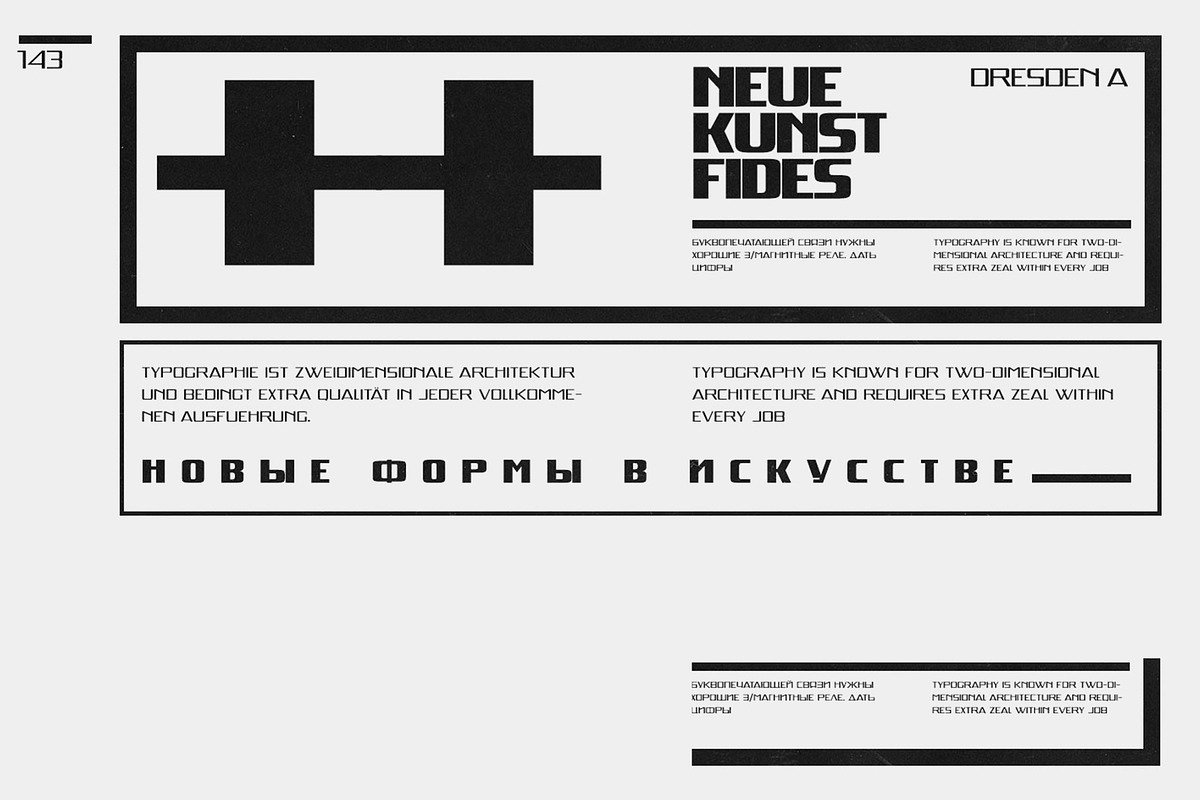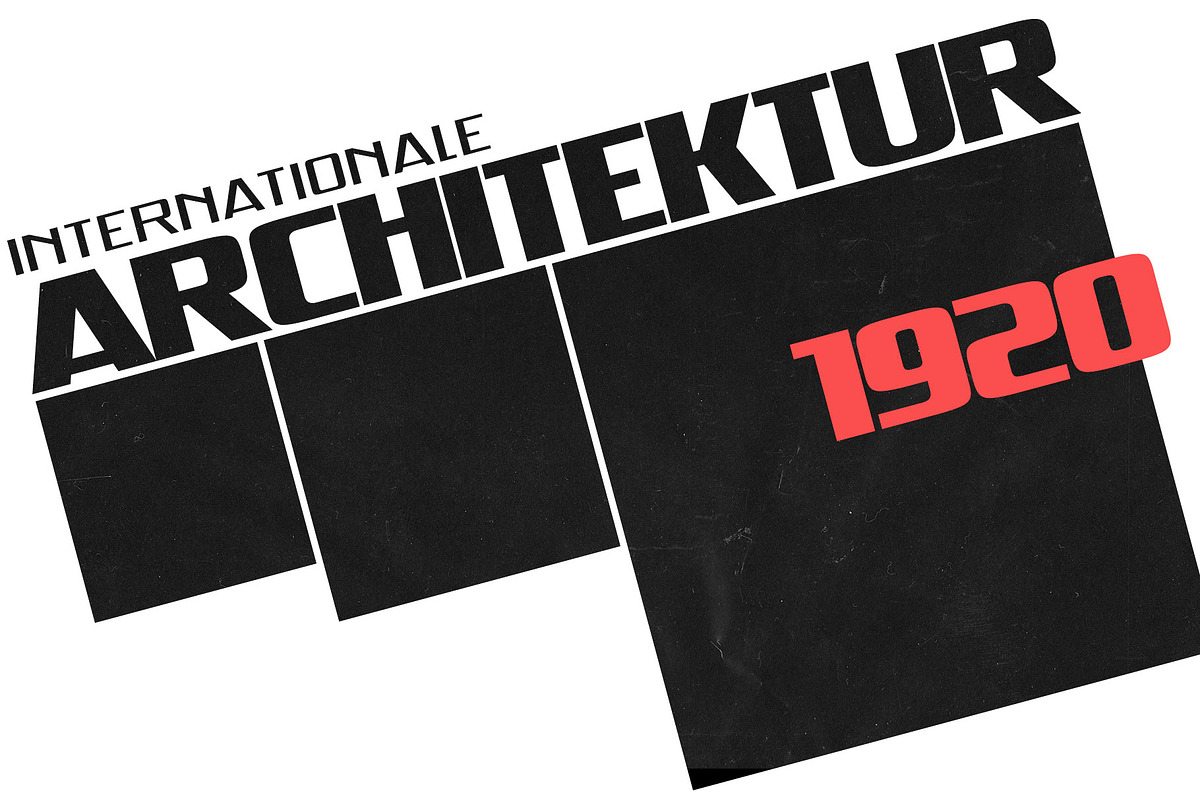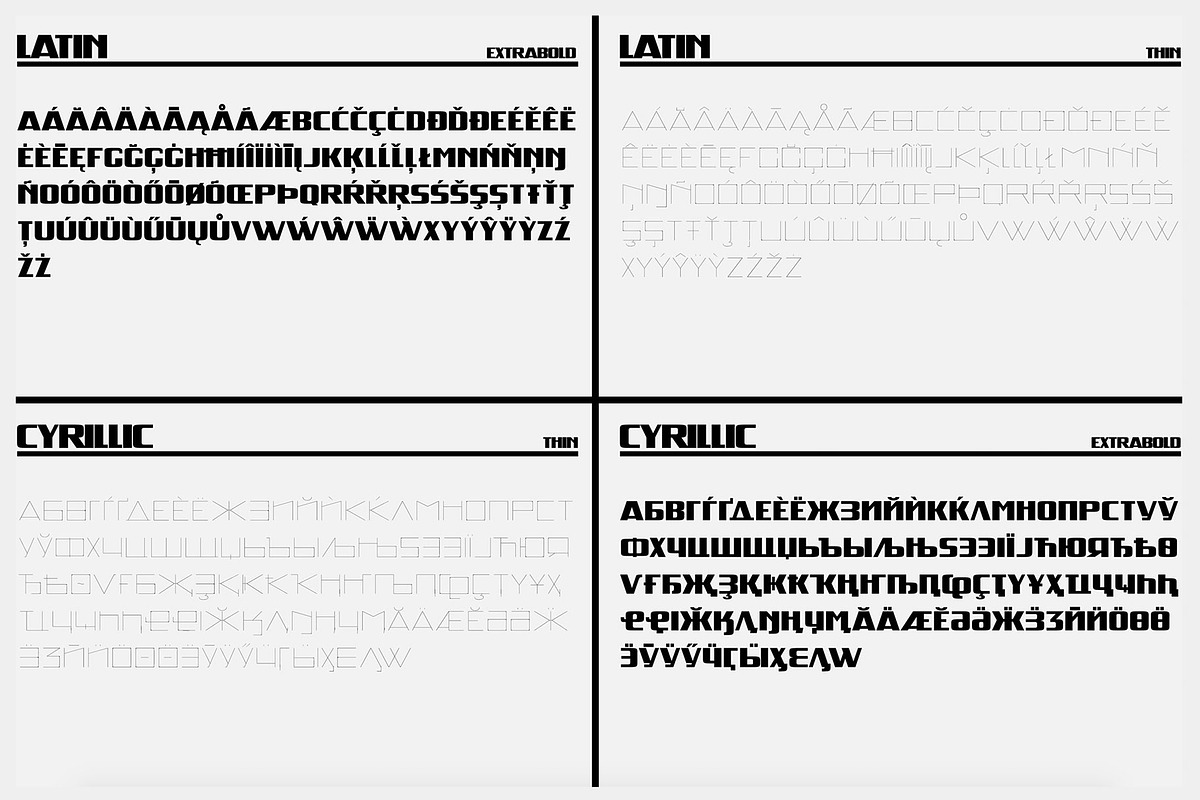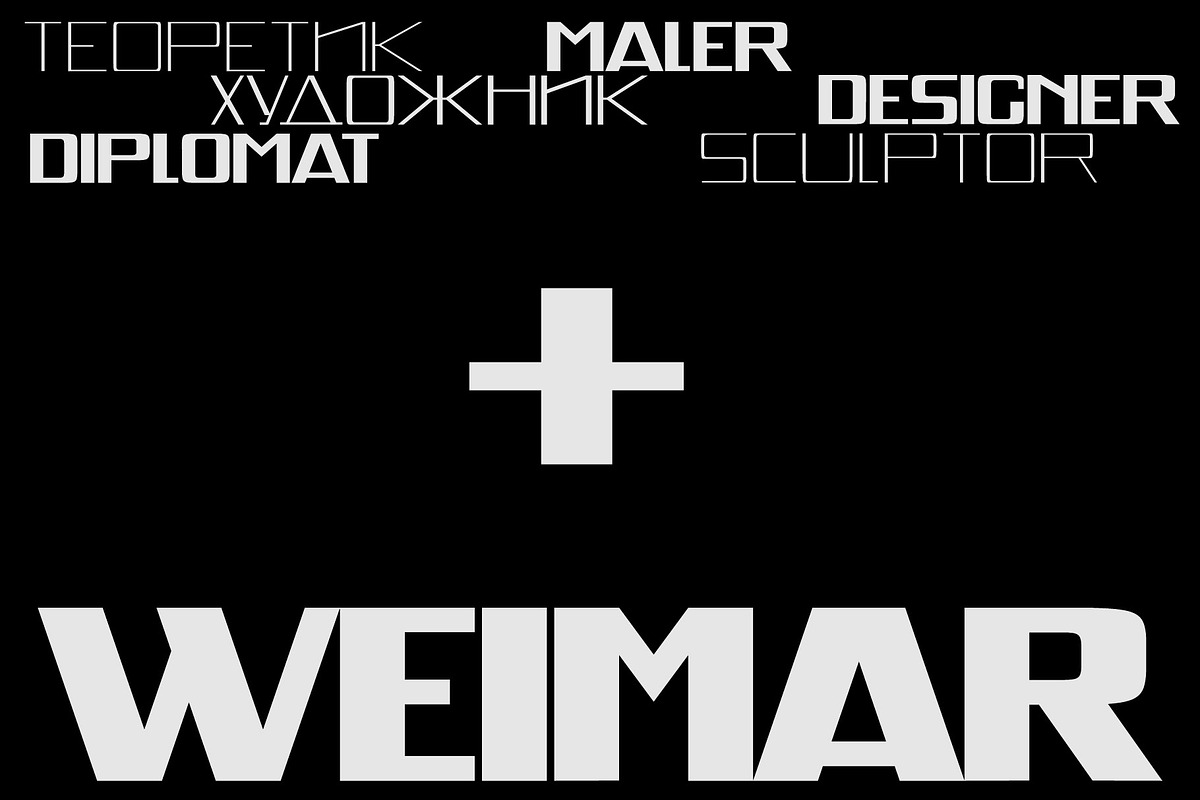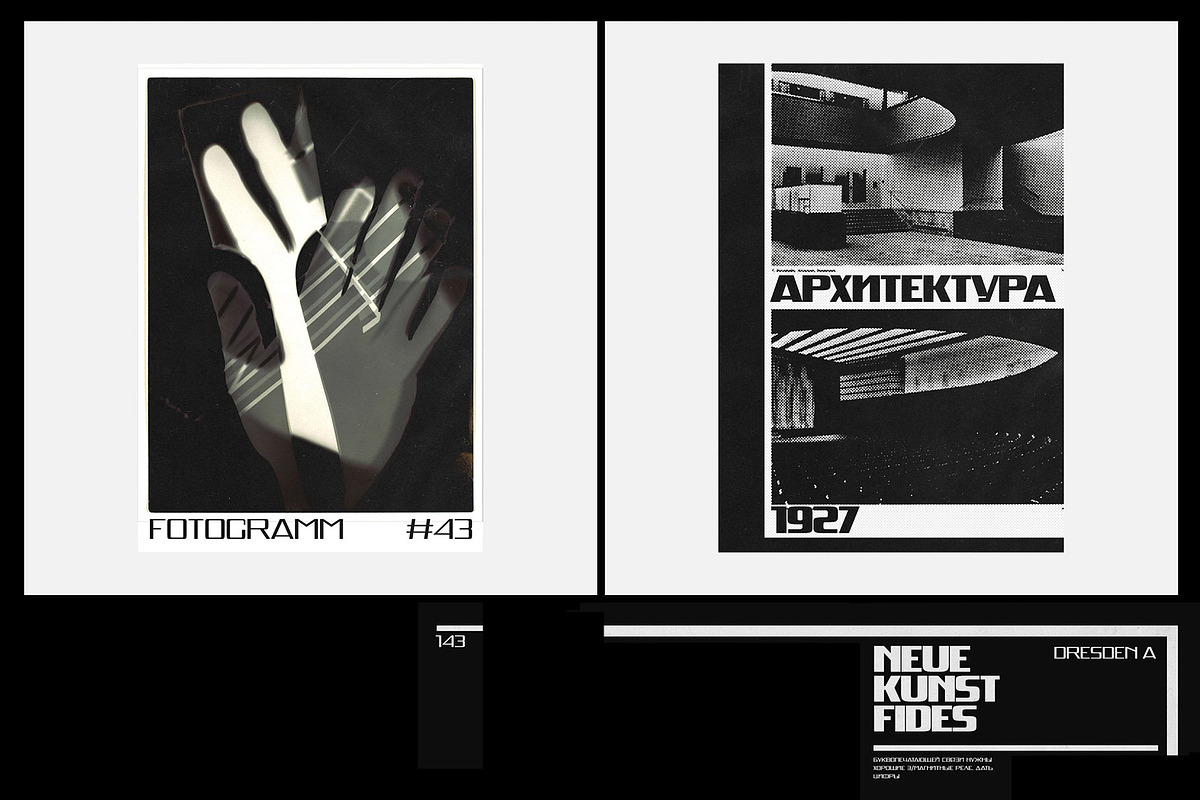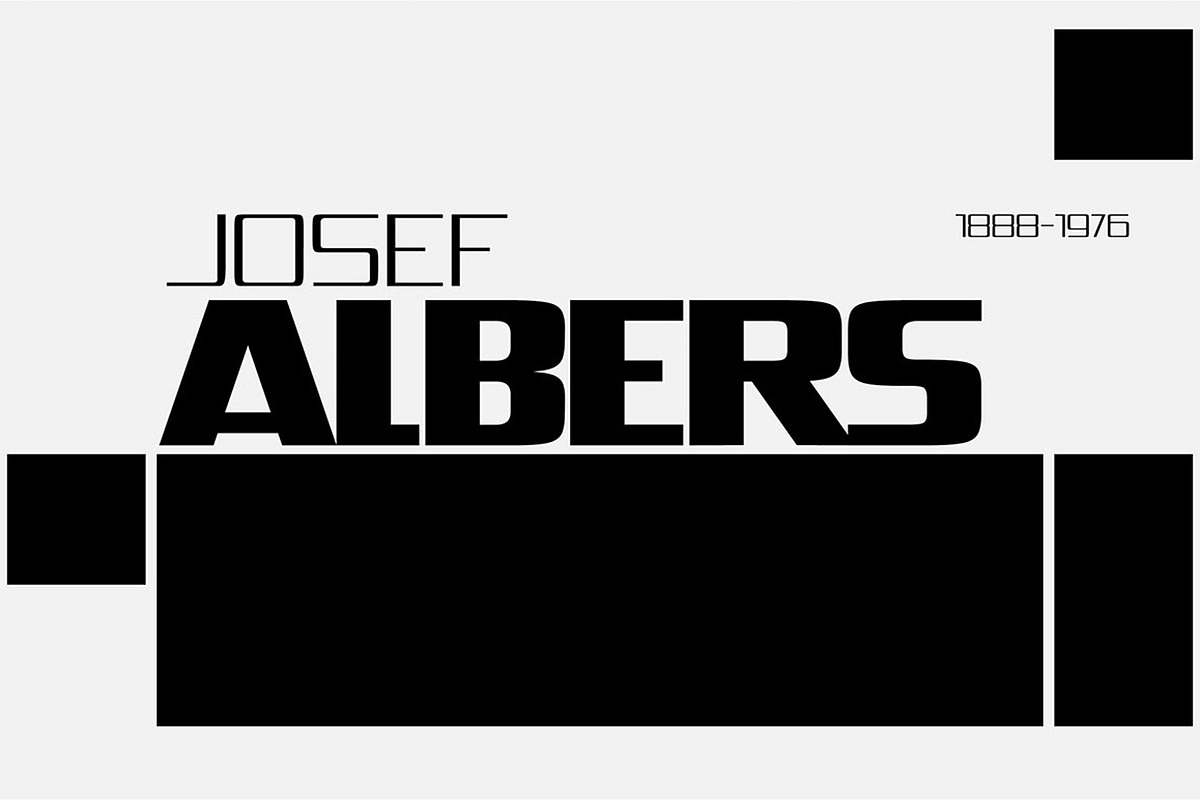
Weimar | Font Family
Weimar is inspired by the Bauhaus and VKhUTEMAS periods. There is a game of contrasts and bold letterforms. Good for posters, logos, headlines in magazines or websites, and book covers. It has a certain architectural aesthetics, tectonics. It's like modernist architecture that has been translated into a font. Weimar is available in 8 styles, starting from Thin to ExtraBold. The font supports Cyrillic.